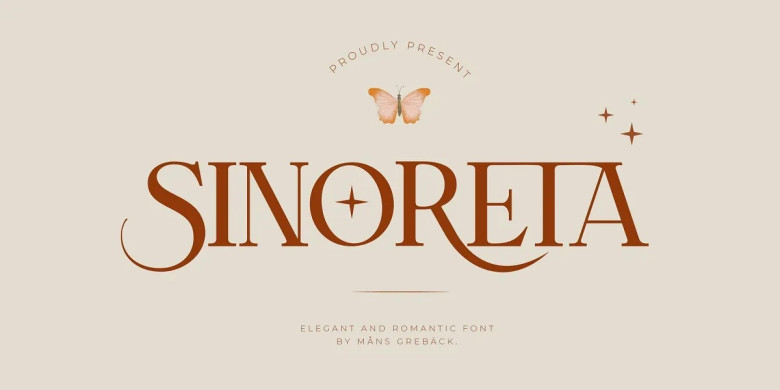
Sinoreta Font
Sinoreta is a classic font with the retro taste of bold and 1930s sophisitication in a modern setting. The decorative alternates add a bit of individuality to Sinoreta, giving it the right look for projects that need bold words well set. From branding to letterheads and from editorial design Sinoreta will add a look that is both classic and refined to your work
This typeface, cultivated by Mans, was developed in 2023 and integrates the traditional serif style with modern design. Choose Sinoreta as a retro, elegant and universal font which will make your designs come aliv